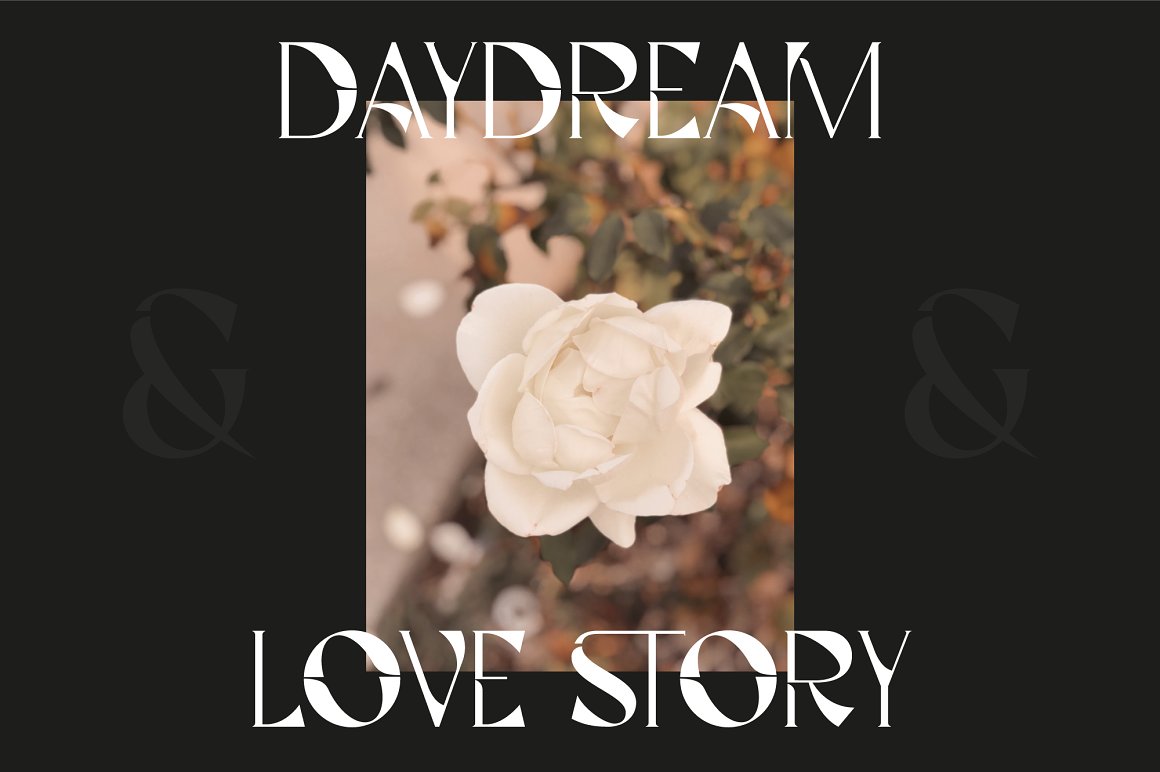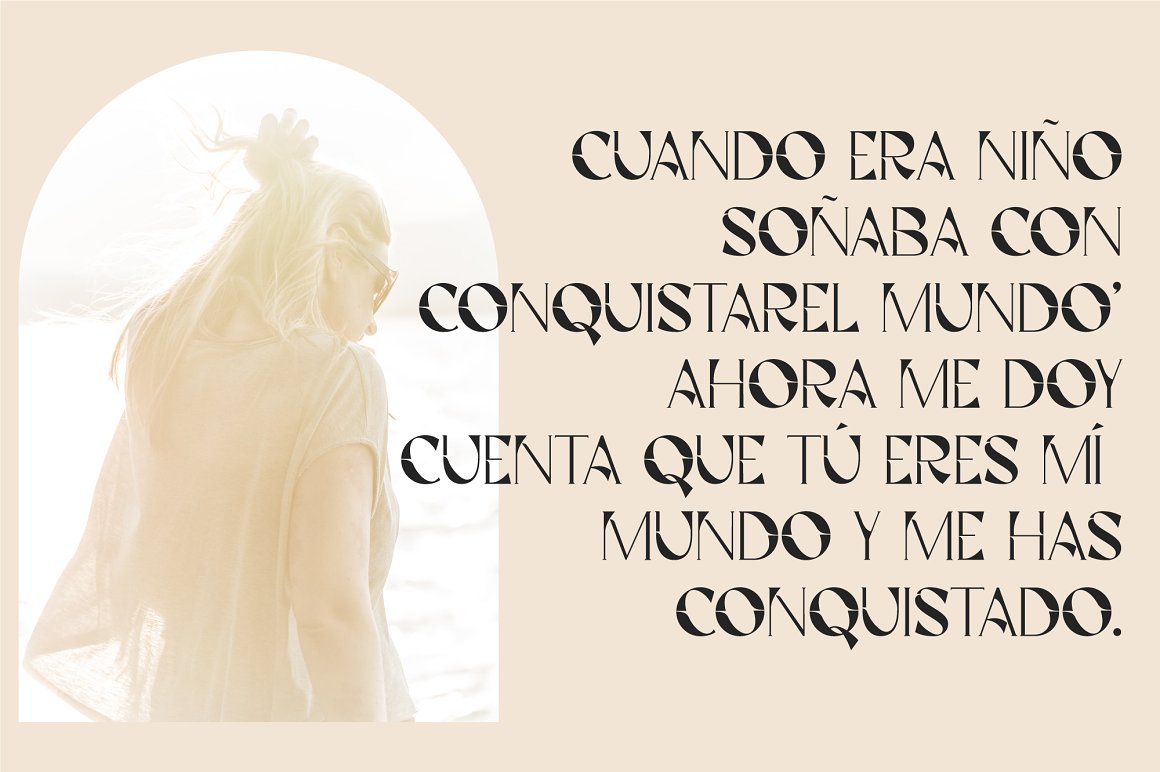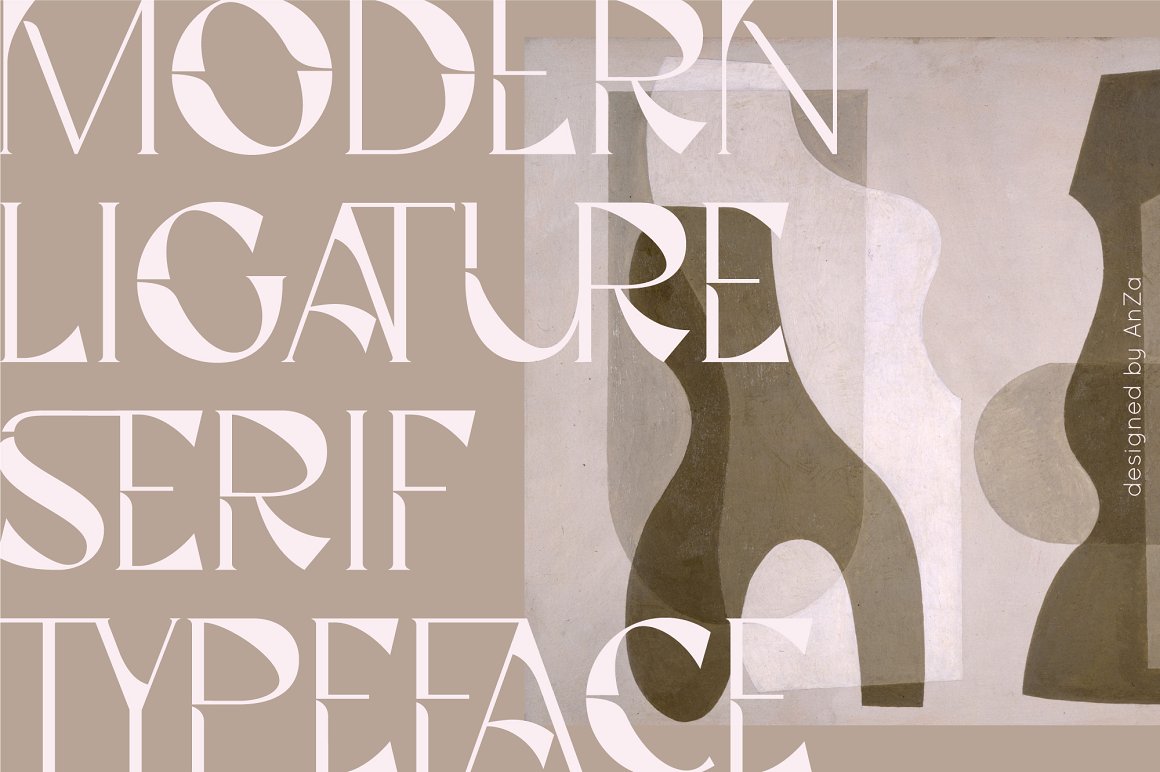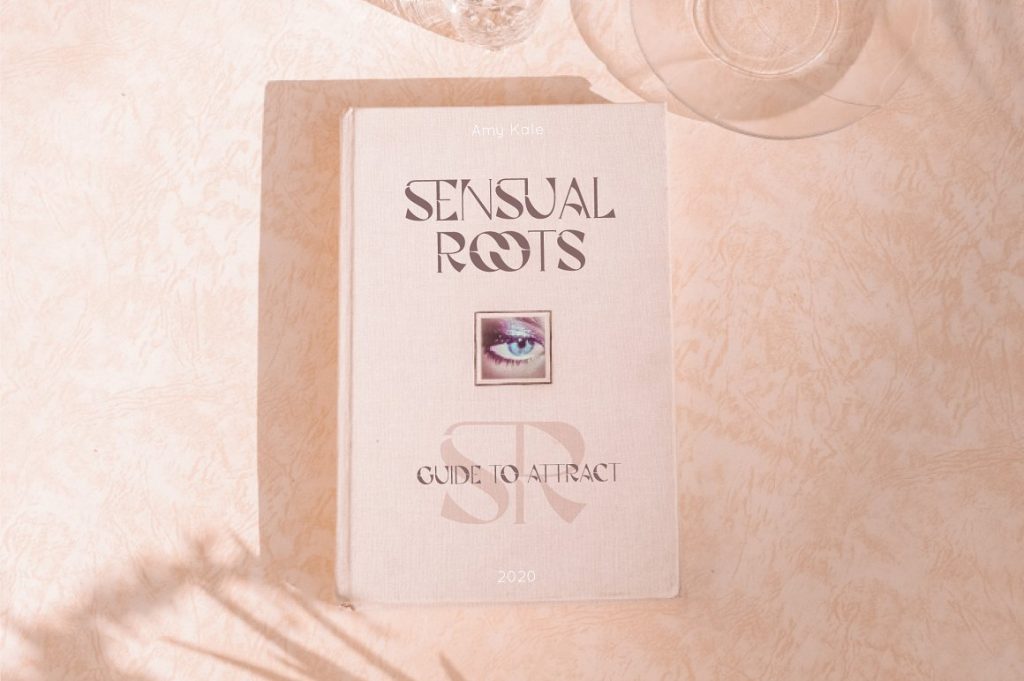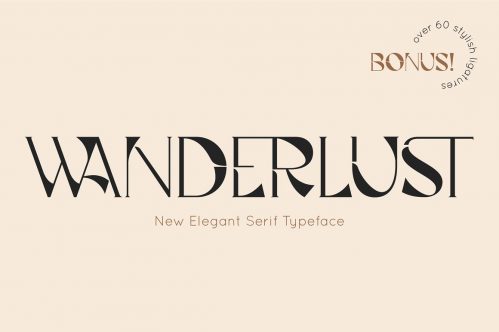
WANDERLUST is a new serif typeface designed with lots of ligatures. This font is really original, characterized by its elegance, reflects both the romantic and the dynamic side.
It is perfect for designers looking to leave an impression. WANDERLUST is simple but significant. It is perfect for headings, flyer, greeting cards, product packaging, book cover, printed quotes, logotype, apparel design, album covers, etc.
WANDERLUST contains a large range of ligatures (unique double-letter pairings) to provide you with more customisation options. Access your OpenType features to access the large selection of ligatures to get luxurious typography. All ligatures can also be accessed via a Glyphs panel.
WANDERLUST has uppercase characters, over 60 ligatures, numbers and punctuations, multilingual support (French, German, Italian, Norwegian, Portuguese, Spanish, Swedish, Swiss German).